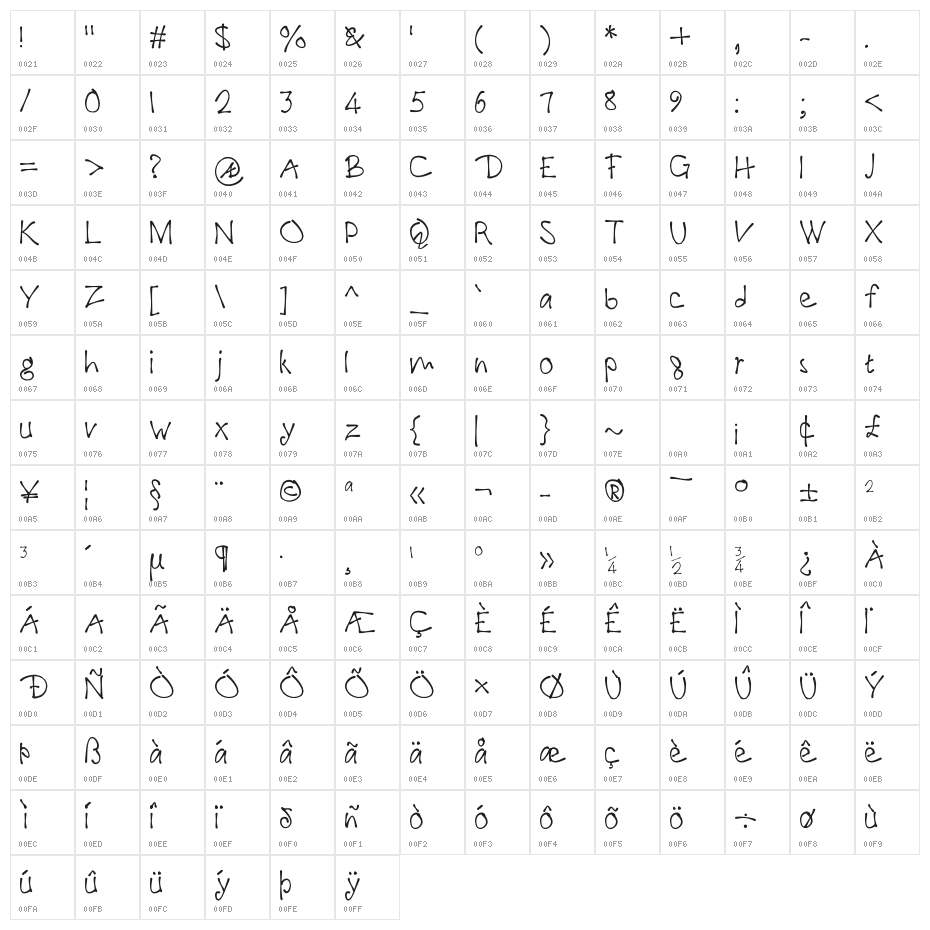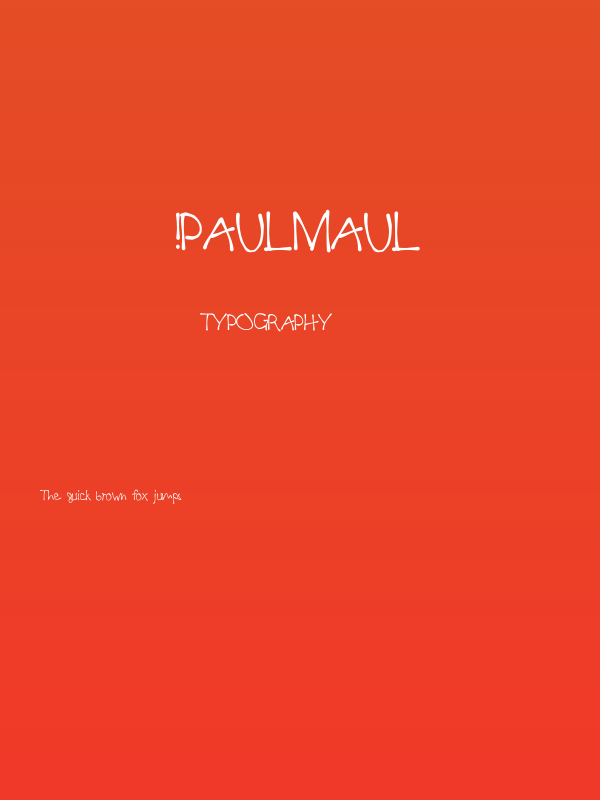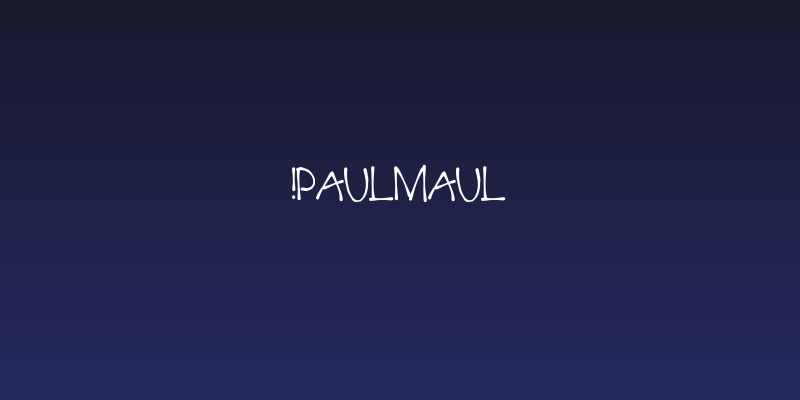
!PaulMaul Font
!PaulMaul Description
This font features a playful and informal handwritten style, characterized by its irregular and dynamic strokes. The letters have a casual, free-flowing appearance, with varying heights and widths that give it a lively and spontaneous feel. The uppercase and lowercase letters maintain a consistent style, while the numbers and special characters complement the overall aesthetic. The font's unique personality makes it suitable for creative and artistic projects, adding a touch of whimsy and individuality.
| Overall Style | Casual, Playful |
| Use Case | Logos, Headlines, Creative projects |
| Proposed Projects | Ideal for greeting cards, children's books, creative posters, and personal branding. |